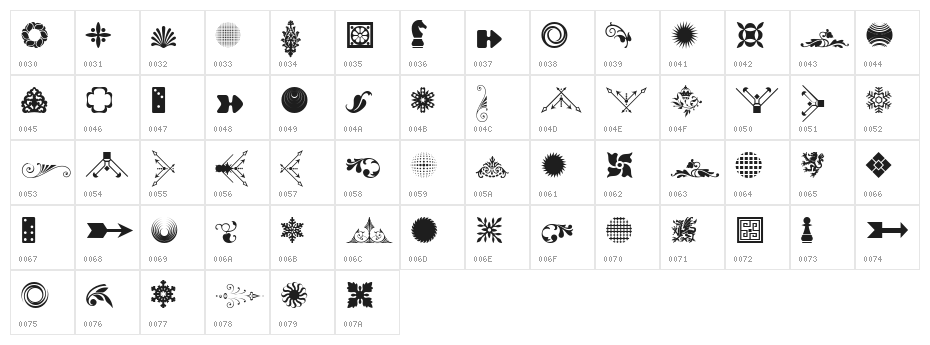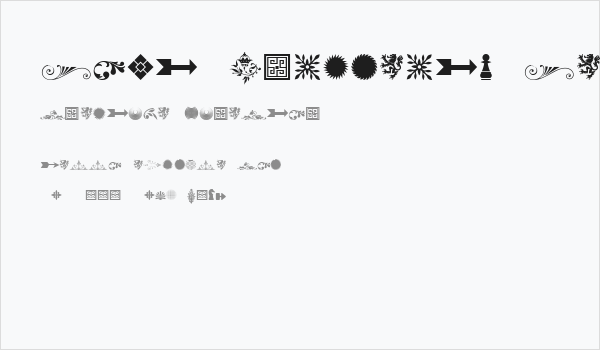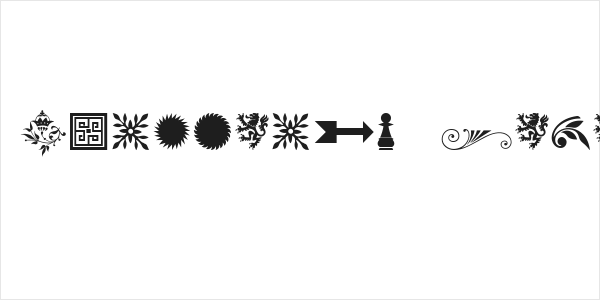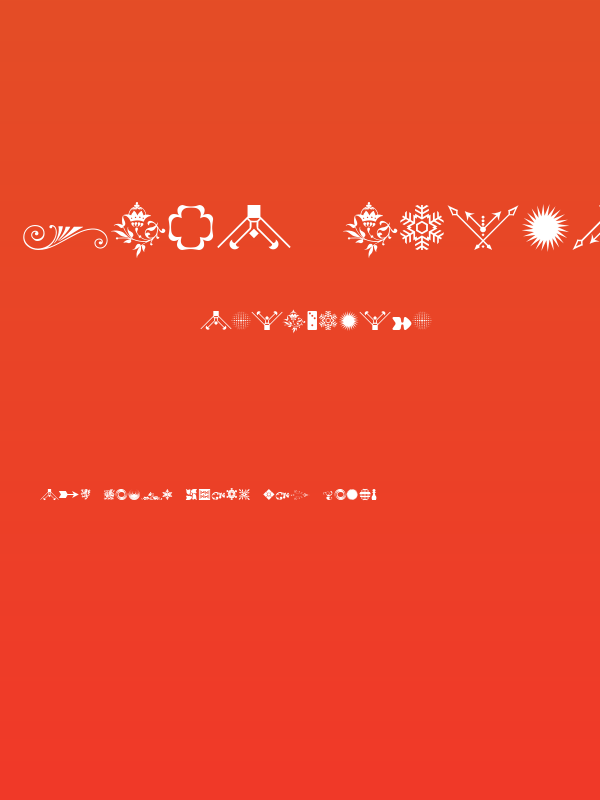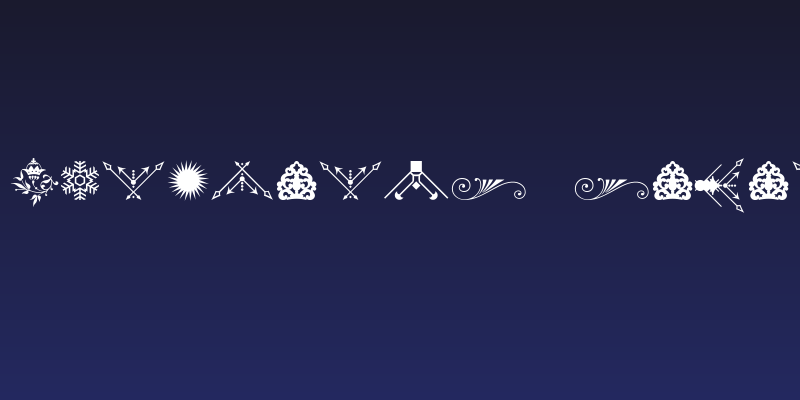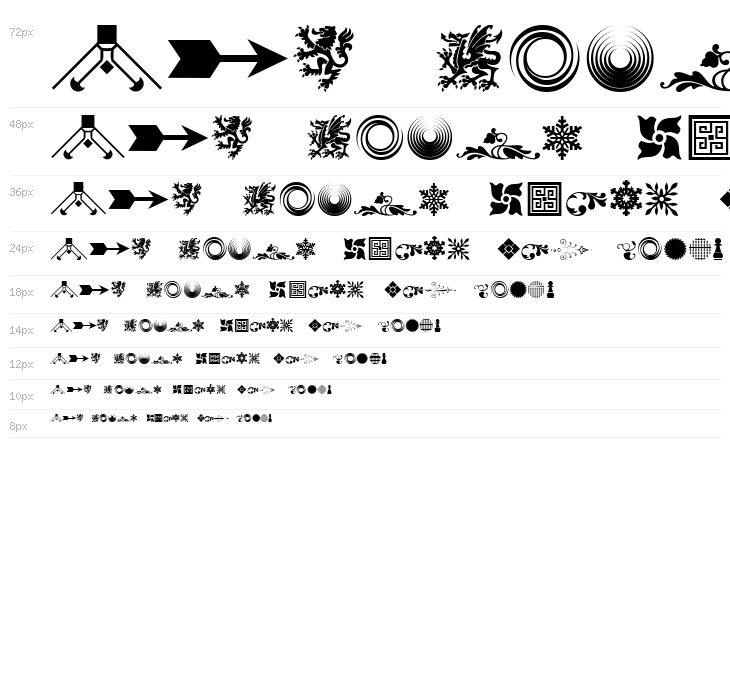
Soft Ornaments Seventeen Font
Soft Ornaments Seventeen Description
A decorative dingbat set featuring a variety of ornate ornaments, flourishes, geometric shapes, arrows, chess pieces, and floral motifs. The glyphs are highly detailed, with both solid and intricate linework, evoking a vintage and ornamental style.
| Overall Style | Decorative, Vintage, Ornamental |
| Use Case | Borders, embellishments, graphic accents, invitations |
| Proposed Projects | Invitations, certificates, borders, decorative dividers, scrapbooking, branding accents, vintage-themed designs. |